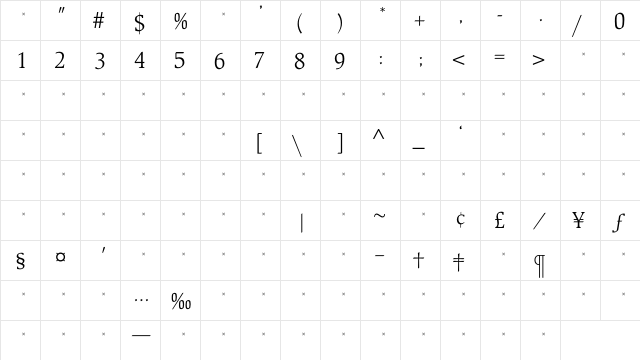
BeckenhamLightTab Regular
Design Context for BeckenhamLightTab Typeface
BeckenhamLightTab is a composed and adaptable typeface that performs quietly and consistently across a wide range of design contexts. Its slender proportions lend an understated elegance to any composition.